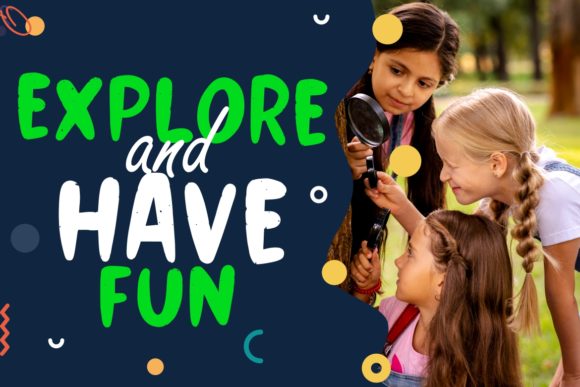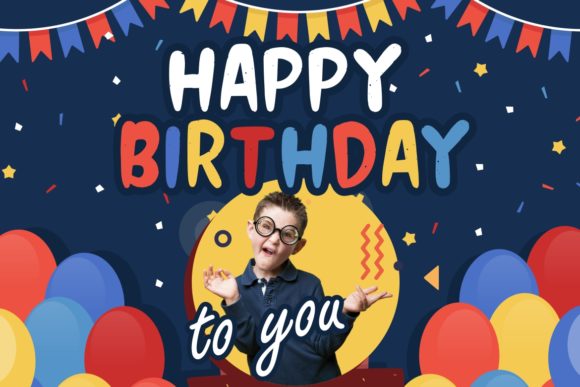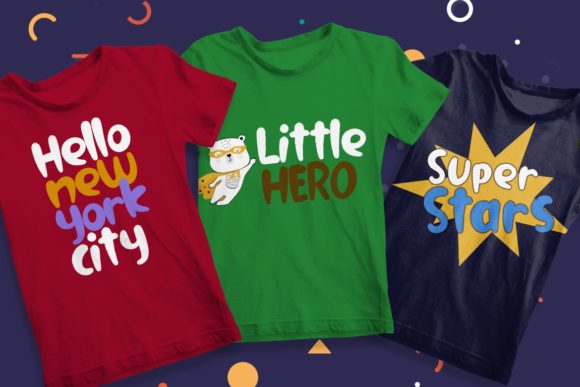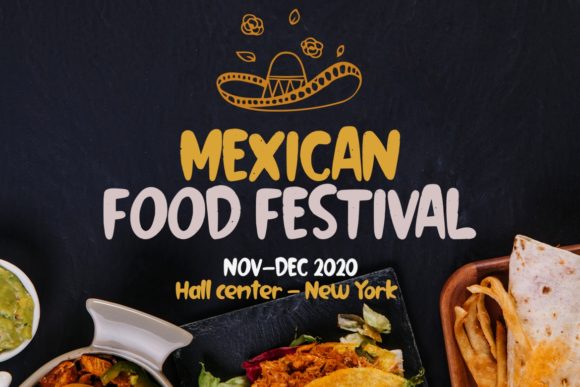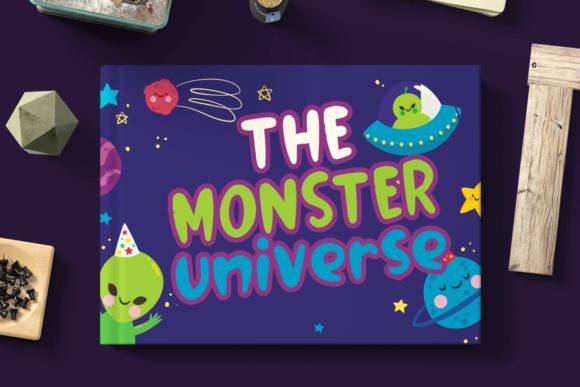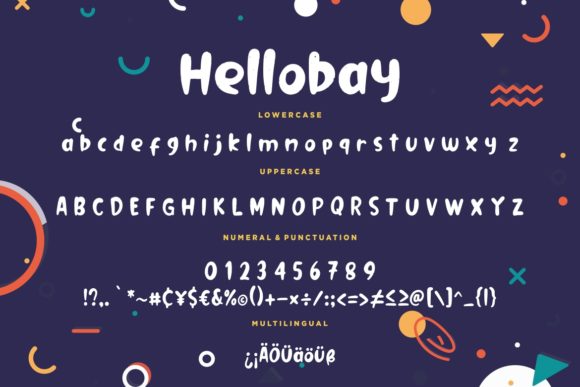
Creating Whimsical Worlds with the Hellobay Font
Who hasn’t felt the rush of creativity when designing something for kids? It’s that moment when imagination knows no bounds, and the possibilities seem endless. As a designer, there’s something truly special about crafting a world that sparks joy and wonder in young minds. And what better way to bring that magic to life than with a font that’s as playful as it is charming?
Meet the Hellobay Font, a delightful display font designed specifically for children-related designs. Its friendly appearance makes it perfect for use in nursery decor, children’s books, and even educational materials. With the Hellobay Font, designers can infuse their creations with a sense of whimsy and fun, making it an invaluable asset for anyone working in the field of children’s design.
Hellobay Font Key Features
- Unique Characteristics: The font features a unique blend of modern and traditional elements, with a distinctive rounded shape and elegant lines that give it a friendly and approachable feel.
Hellobay Font Review
Overall, I’m quite impressed with the Hellobay font. Here’s what I like:
- ✨ Unique design: Hellobay has a distinctive and modern feel that’s perfect for projects that need a touch of personality.
- ✨ High-quality glyphs: The font includes a wide range of characters, including ligatures, alternates, and ornaments, making it a great choice for creative projects.
- ✨ Good legibility: Even at small sizes, the font remains readable and clear, which is essential for projects that require a lot of text.
However, there are a few limitations I’ve noticed:
- ⚠️ Limited language support: While the font includes a decent selection of Latin characters, it falls short when it comes to non-Latin languages.
- ⚠️ Not ideal for body text: While Hellobay is great for headlines and titles, it’s not the best choice for large blocks of body text due to its relatively low x-height and narrow letterforms.
- ⚠️ May not be suitable for certain screen resolutions: Some users may find that the font appears blurry or distorted at certain screen resolutions, particularly those with lower pixel densities.
Overall, Hellobay is a great choice for projects that require a unique and modern feel. However, it may not be the best option for projects with complex language requirements or large blocks of body text.
Getting the Most Out of Hellobay Font
Here are some tips for getting the most out of Hellobay Font:
- Experiment with different font sizes and styles to find the right look for your design.
- Use Hellobay Font in combination with other fonts to create a unique and eye-catching design.
- Take advantage of Hellobay Font’s versatility by using it for both headings and body text.
Hellobay Font is perfect for:
- Designing modern and minimalist logos.
- Creating eye-catching headings and titles.
- Adding a touch of sophistication to business presentations and reports. Alternatives to Hellobay Font for Designers
Pacifico is a beautiful, elegant script font perfect for adding a touch of sophistication to your designs. It’s ideal for use in titles, headings, and other display text where you want to create a sense of luxury and refinement.
Compared to Hellobay Font, Pacifico has a more refined and polished feel, making it suitable for high-end branding and marketing materials. While Hellobay Font has a more playful and modern vibe, Pacifico is better suited for more traditional or classic designs.